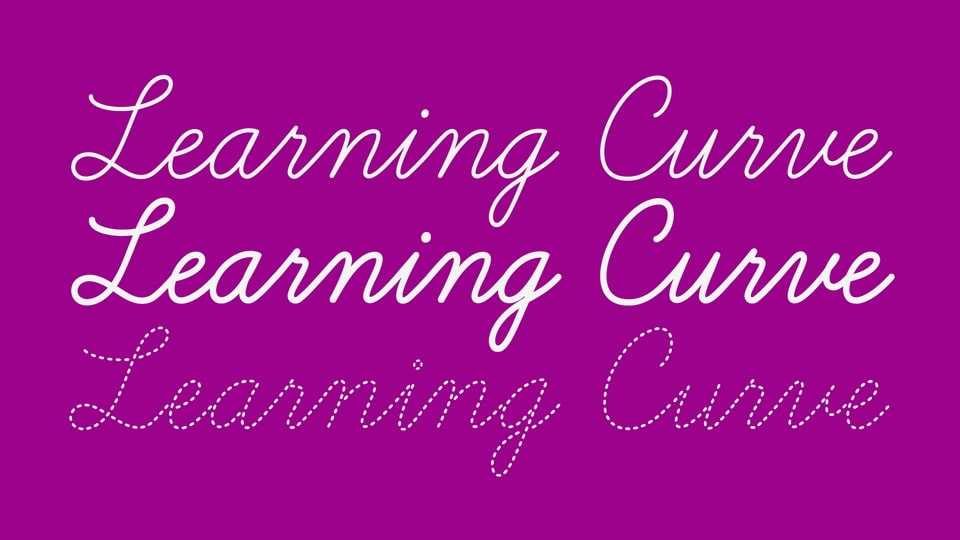
Download Learning Curve font, a hand drawn typeface that mimics traditional cursive handwriting worksheets, but with a modern style that developed from the personal handwriting.
Designer: Jess Latham